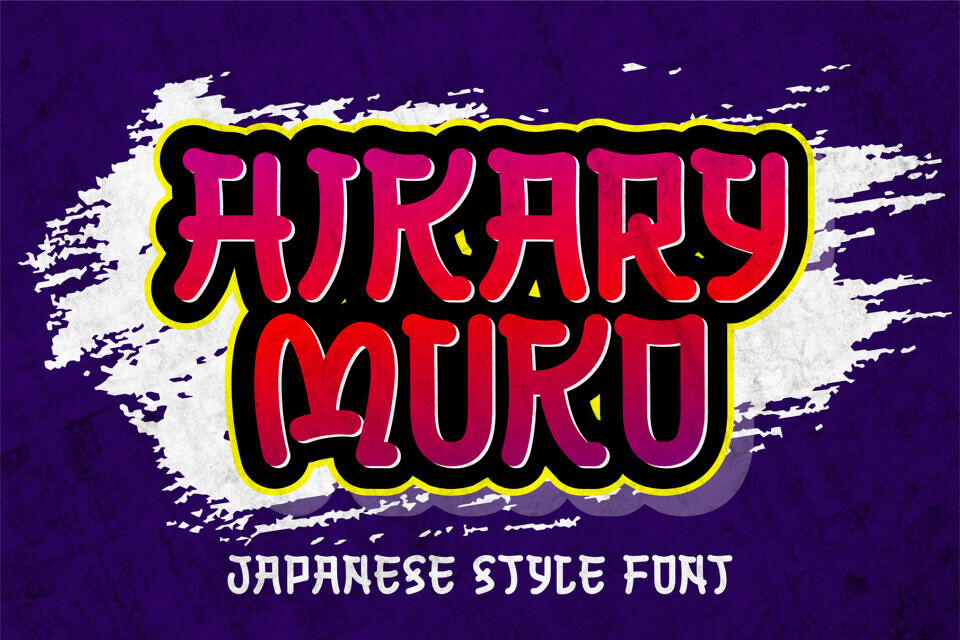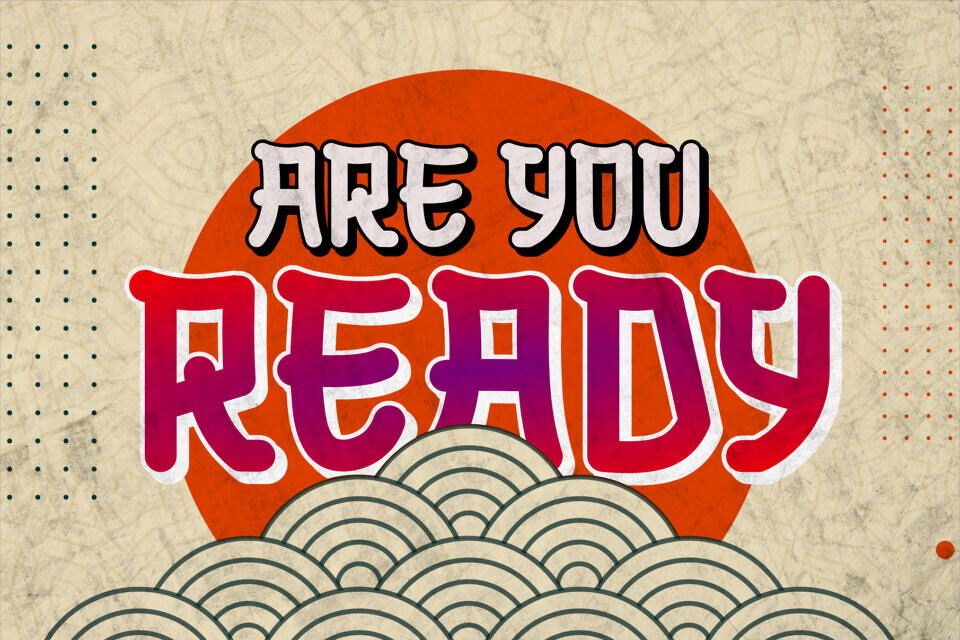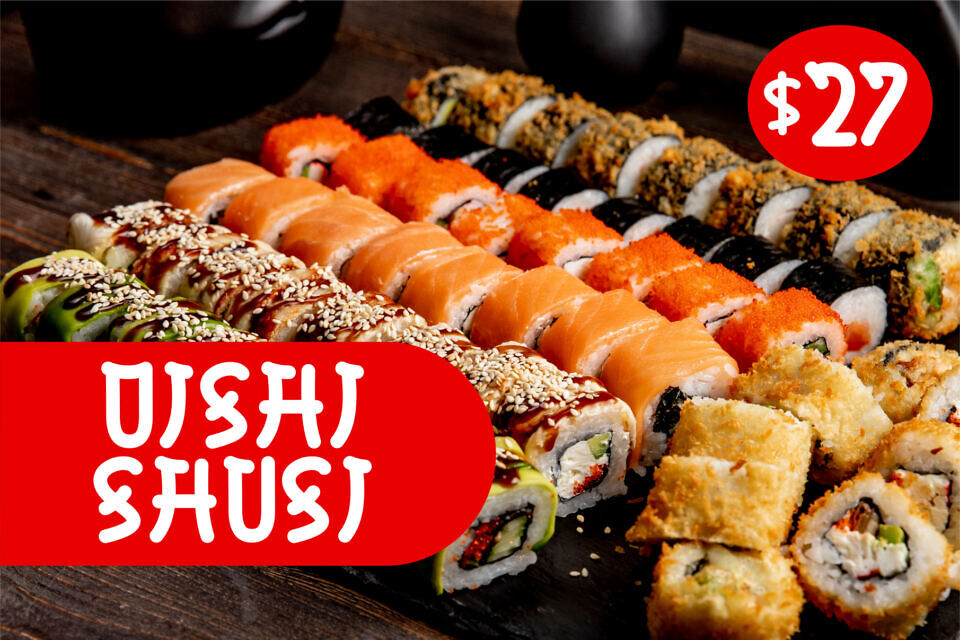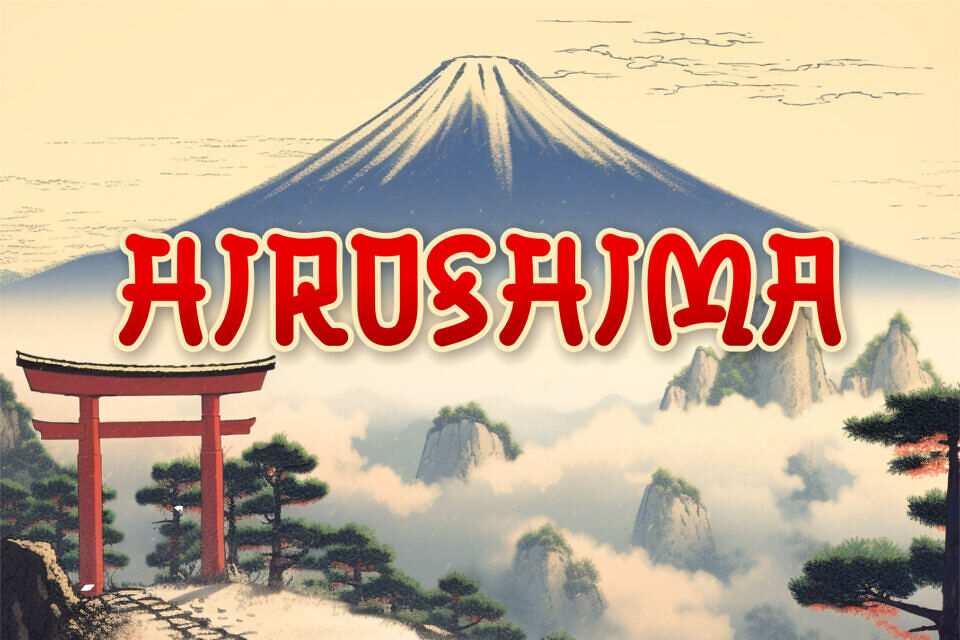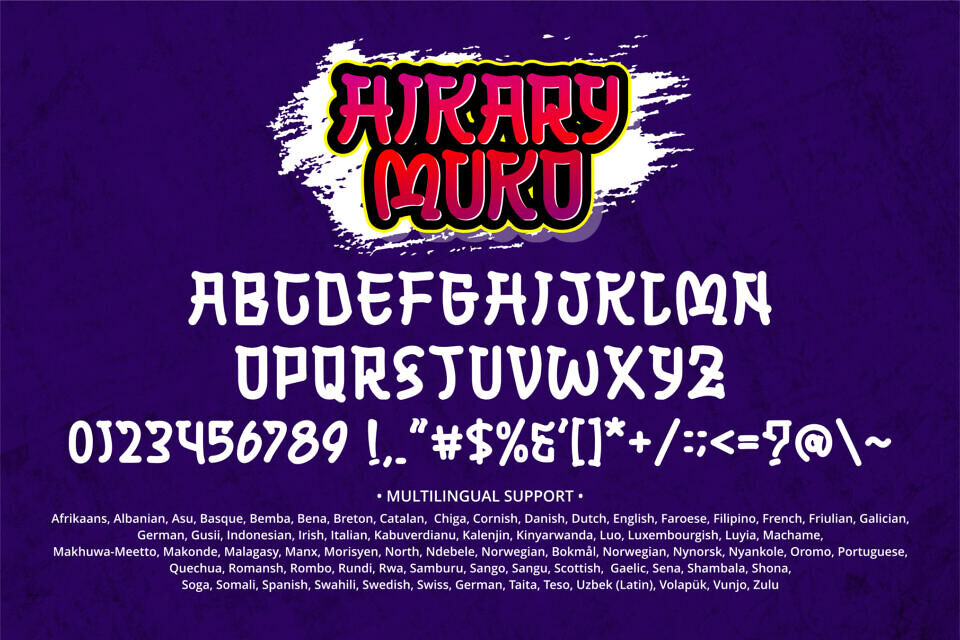
Hikary Muko is a bold Japanese-style display font inspired by traditional and modern Japanese aesthetics. Featuring strong, rounded strokes with a dynamic and expressive shape, this font delivers a striking visual impact that instantly grabs attention.
Designed with a unique blend of playful curves and cultural character, Hikary Muko is perfect for projects that need a powerful and artistic touch, such as: Japanese-themed designs, Posters & street-style graphics, Branding and logos, Packaging design, Gaming, anime, and pop culture visuals!